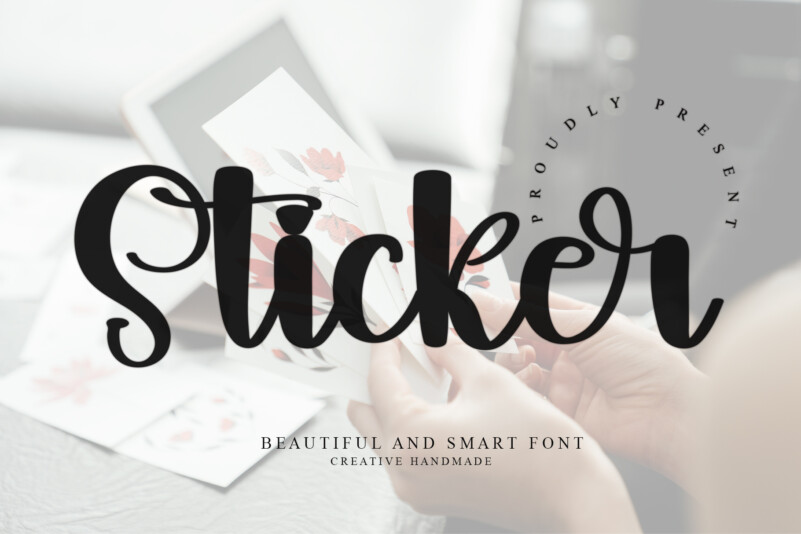
Playful Display Font
Playful Display Font is a neat and casual handwritten font. Its natural and unique style makes it incredibly fitting to a large pool of designs. The only limit is your imagination!